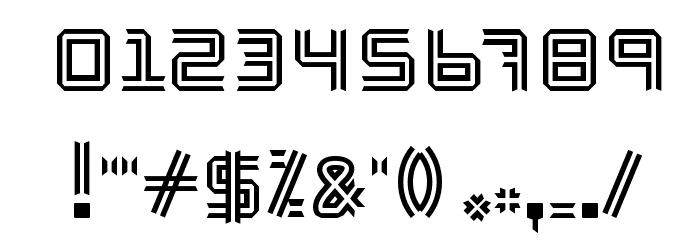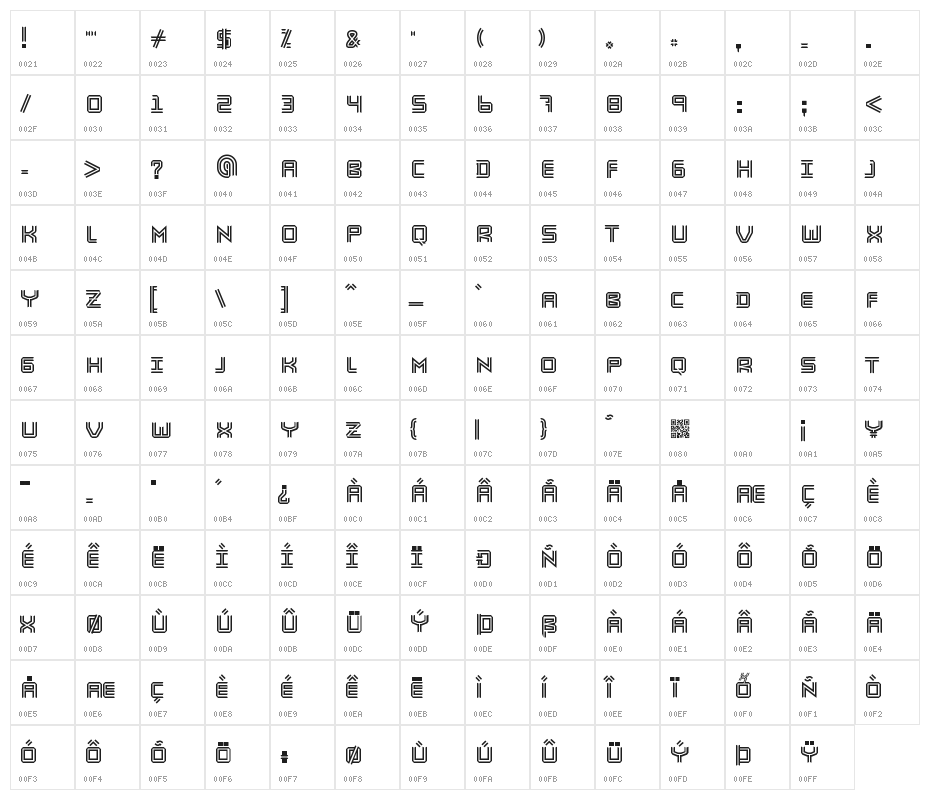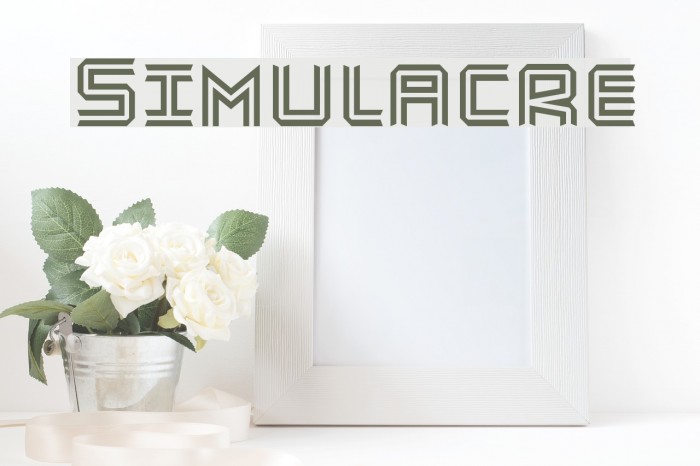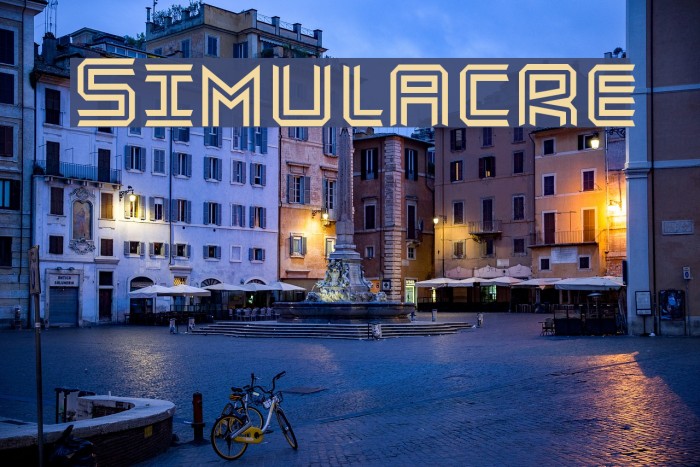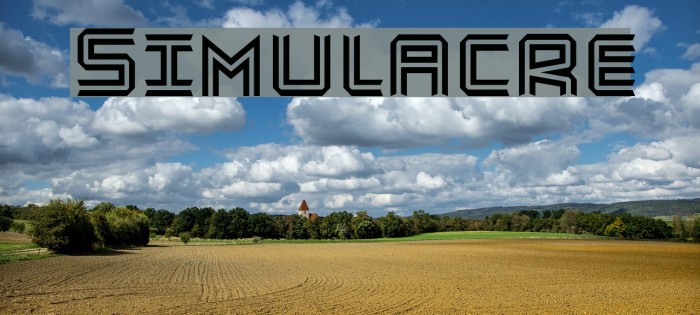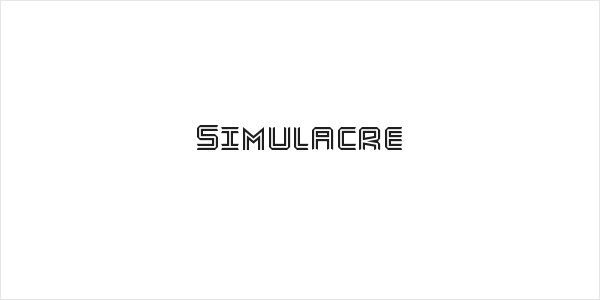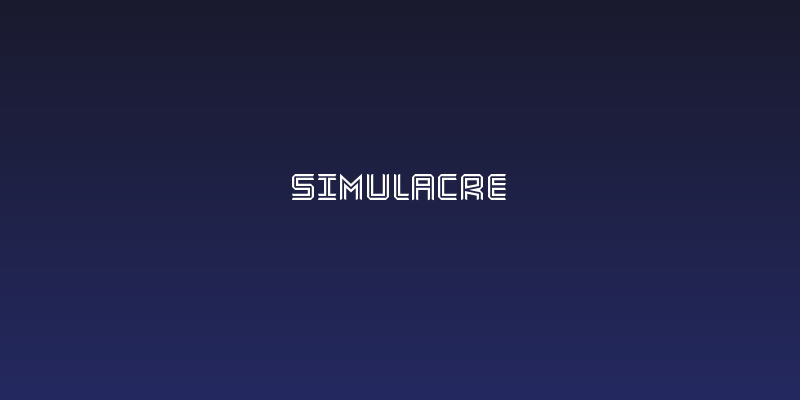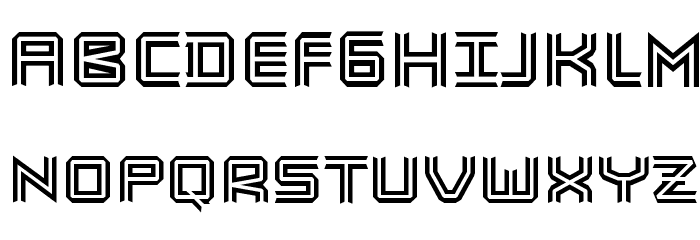
Simulacre Font
Simulacre Description
This font features a bold, geometric design with a futuristic and digital aesthetic. The characters are constructed with thick, parallel lines that create a sense of depth and dimension. The angular and structured forms give it a mechanical feel, reminiscent of digital displays or sci-fi themes. The uppercase and lowercase letters maintain a consistent style, with numerals and special characters following the same design principles. The overall appearance is striking and modern, making it suitable for projects that require a strong visual impact.
| Proposed Projects | Ideal for sci-fi themed designs, digital interfaces, video game titles, and technology branding. |